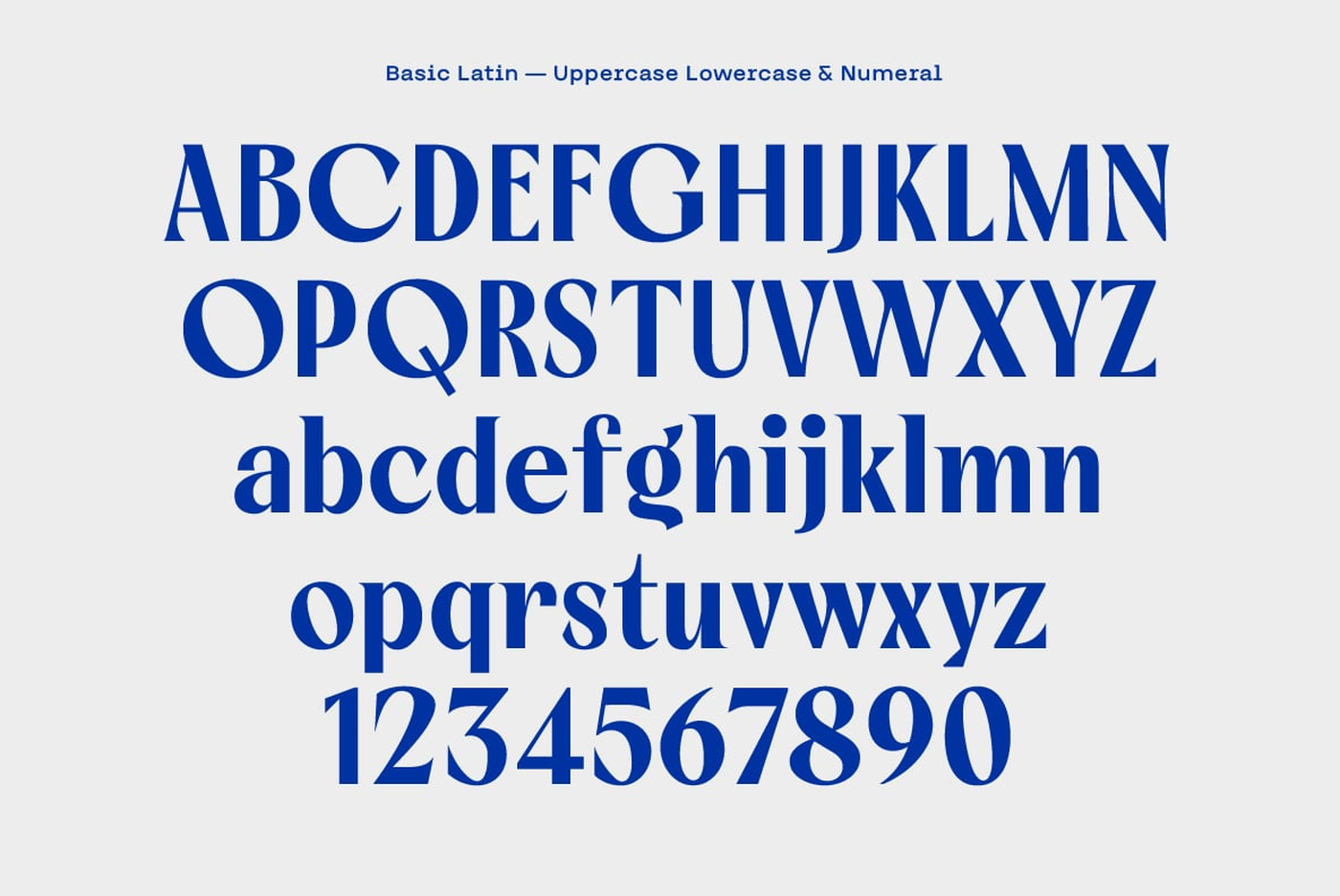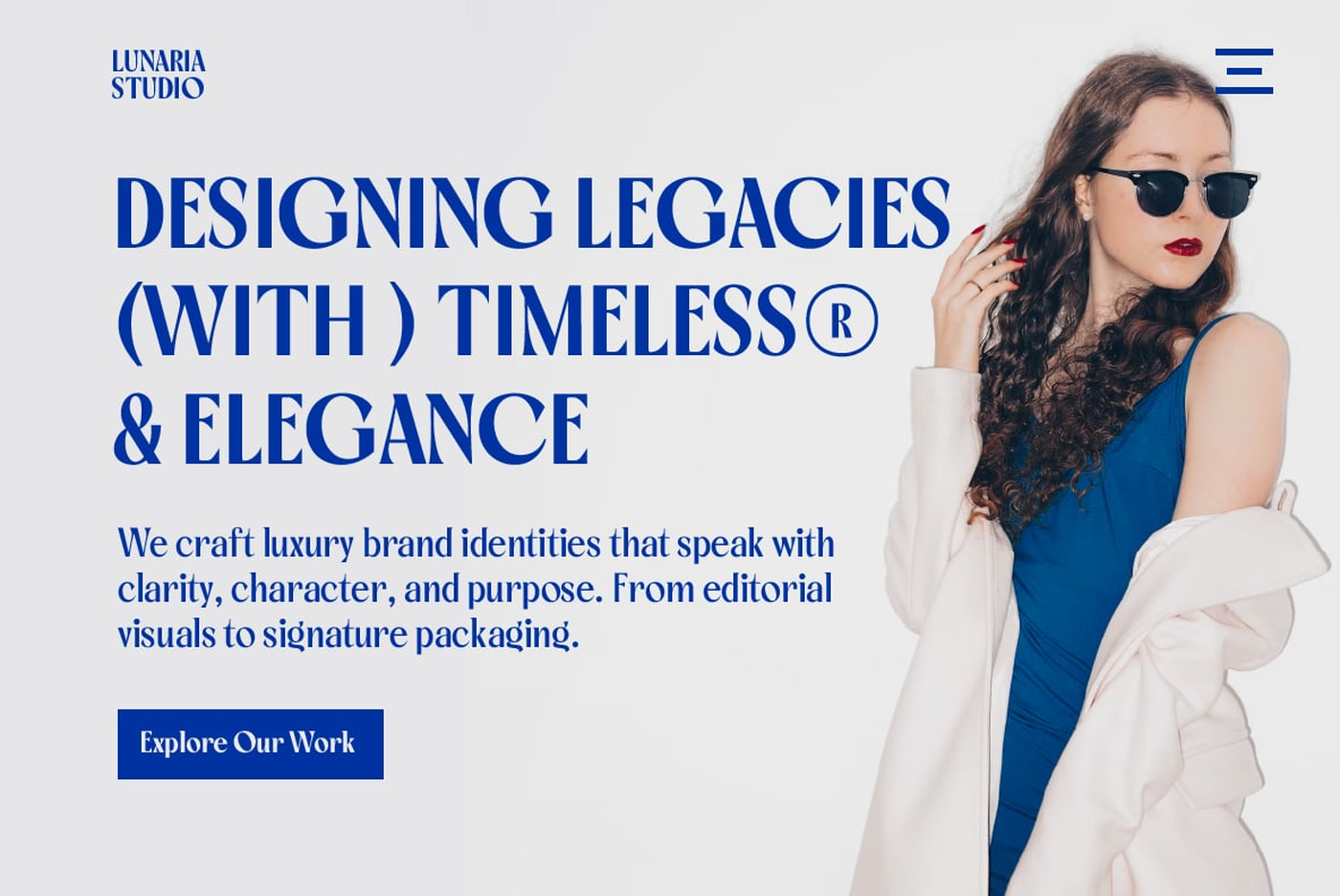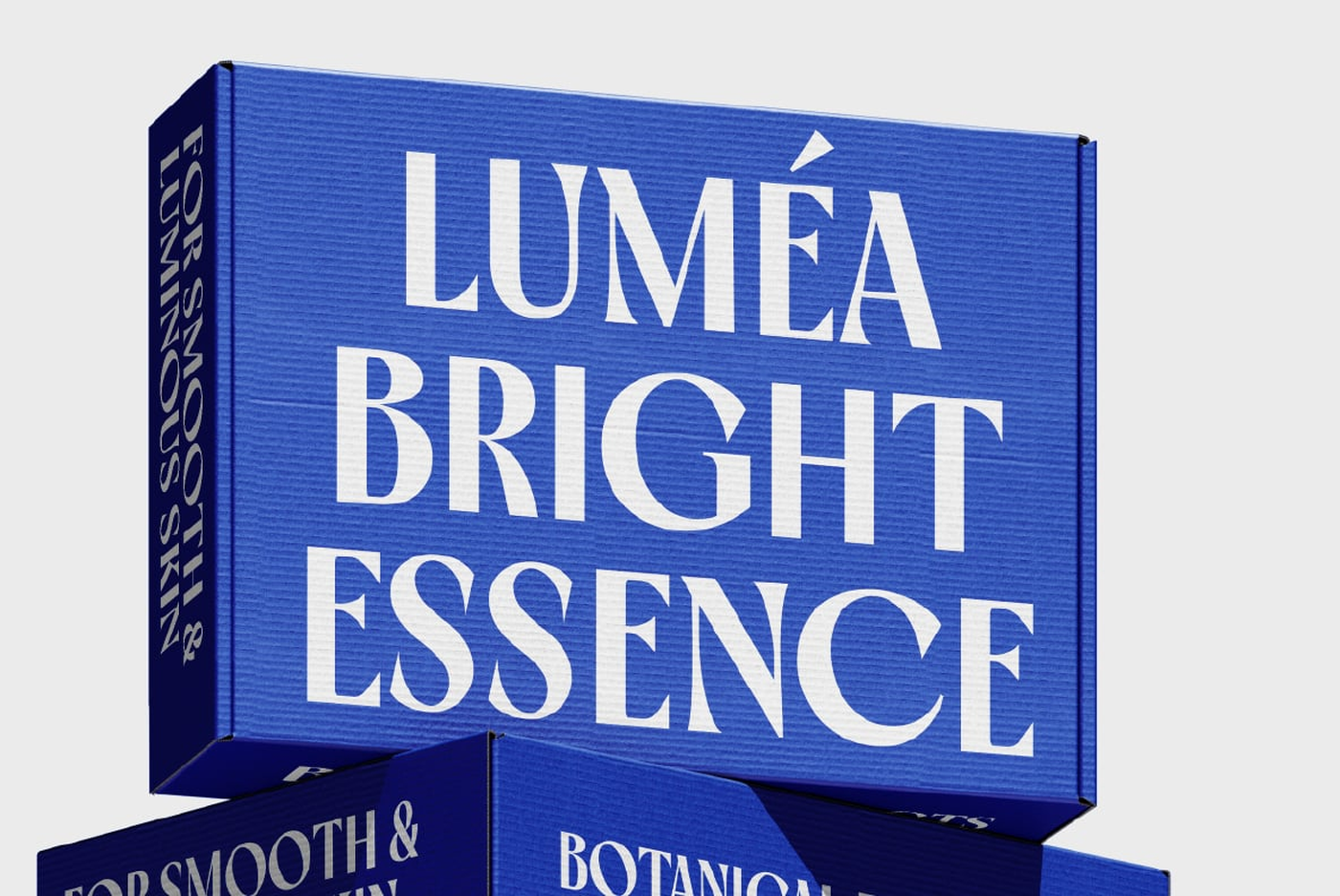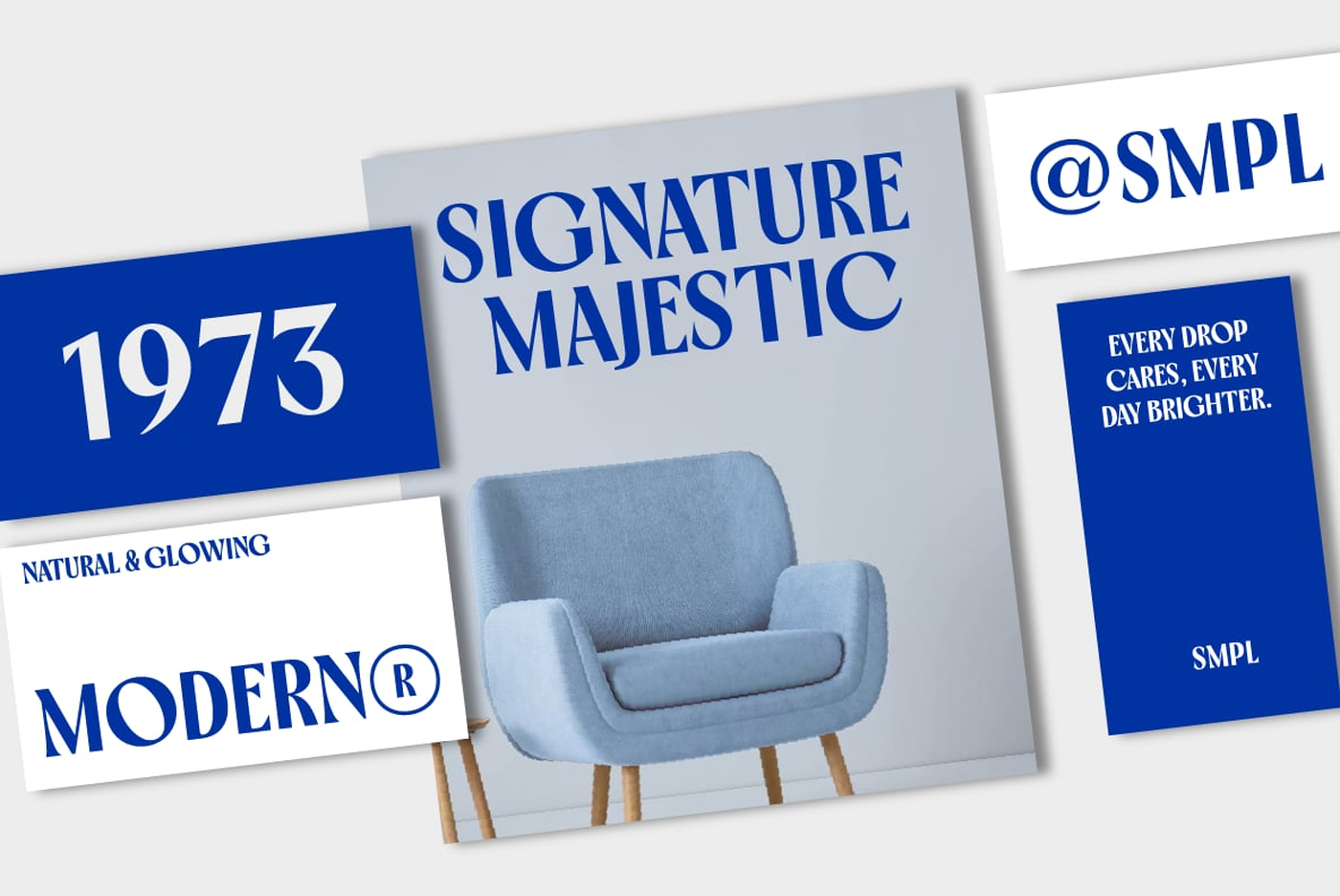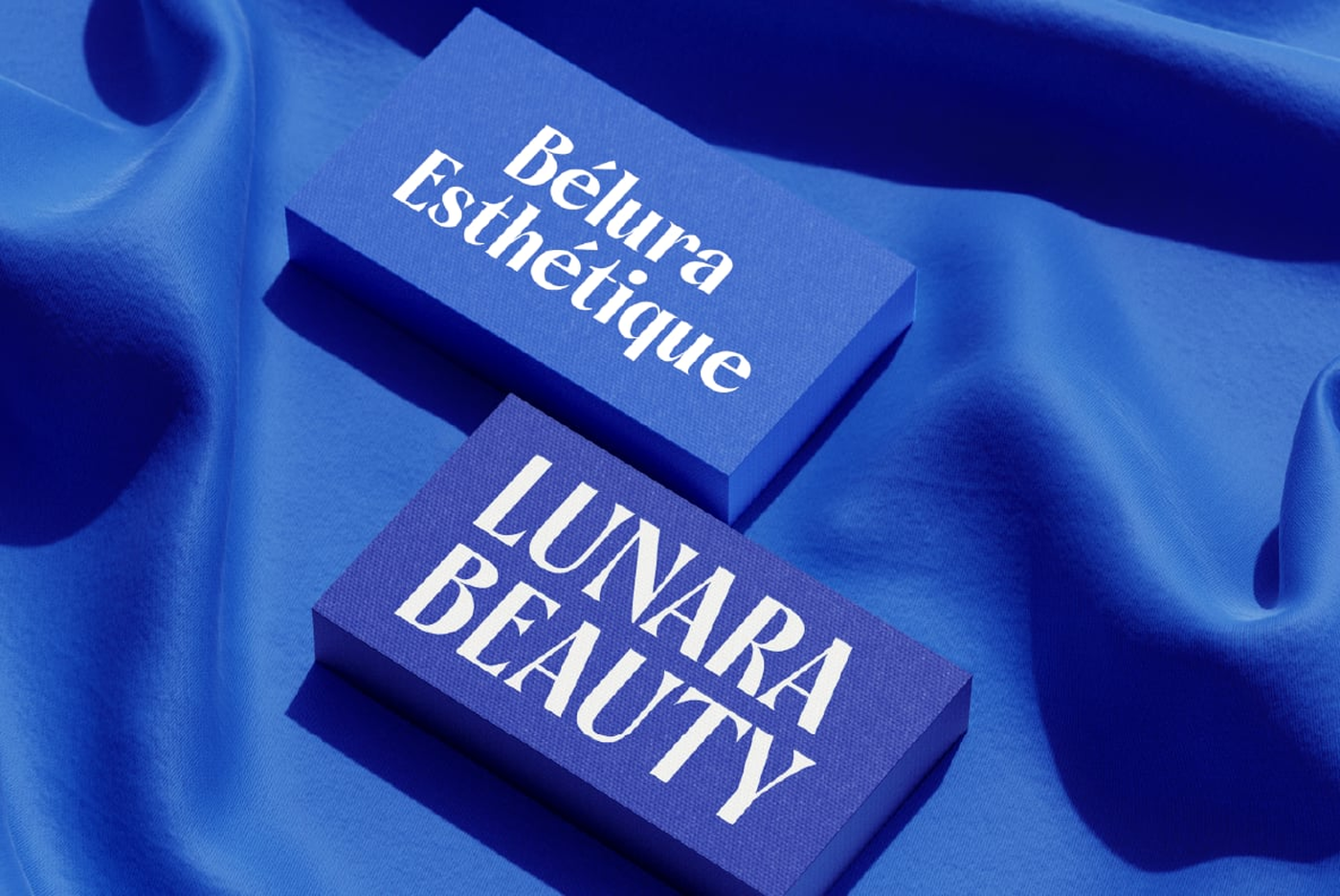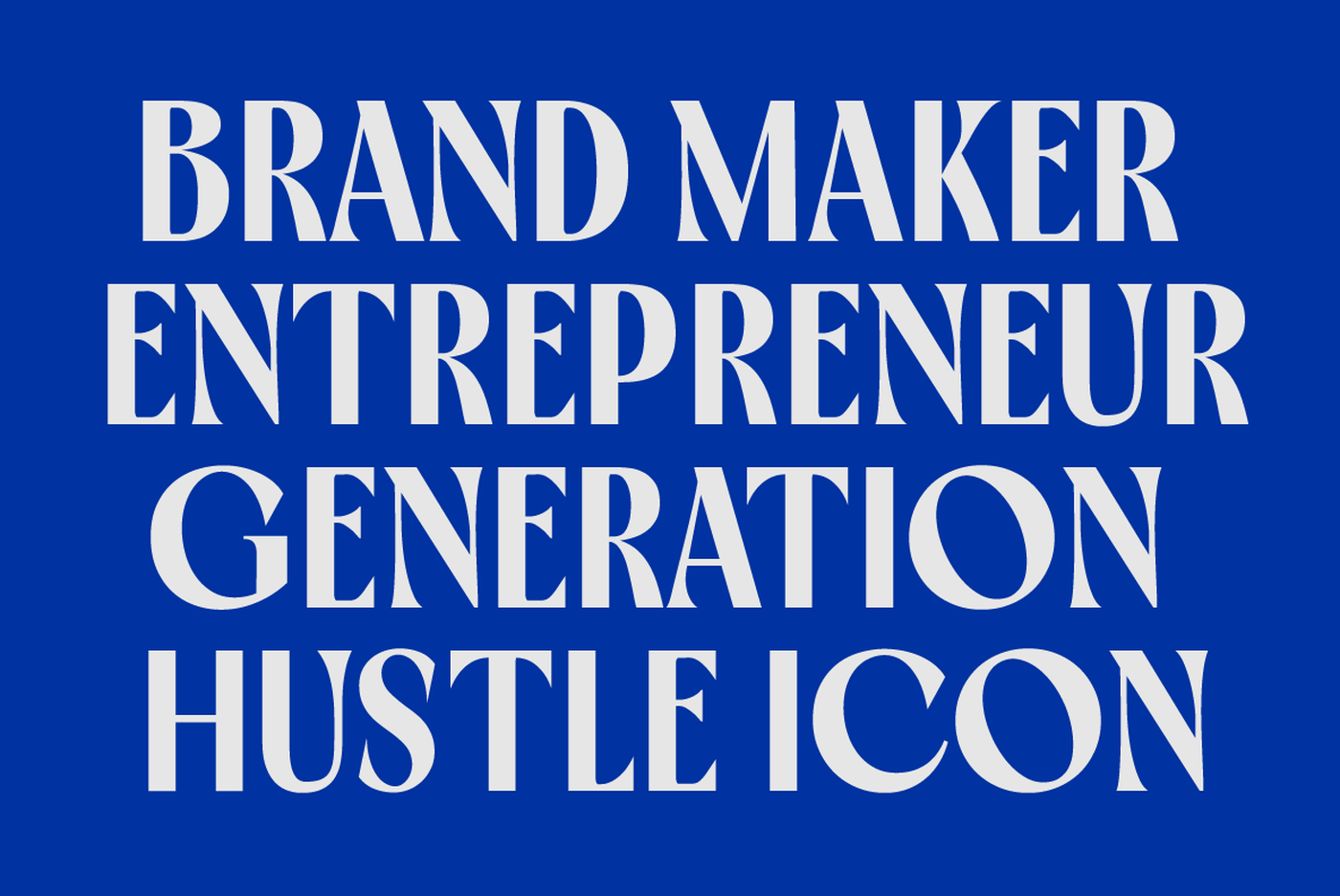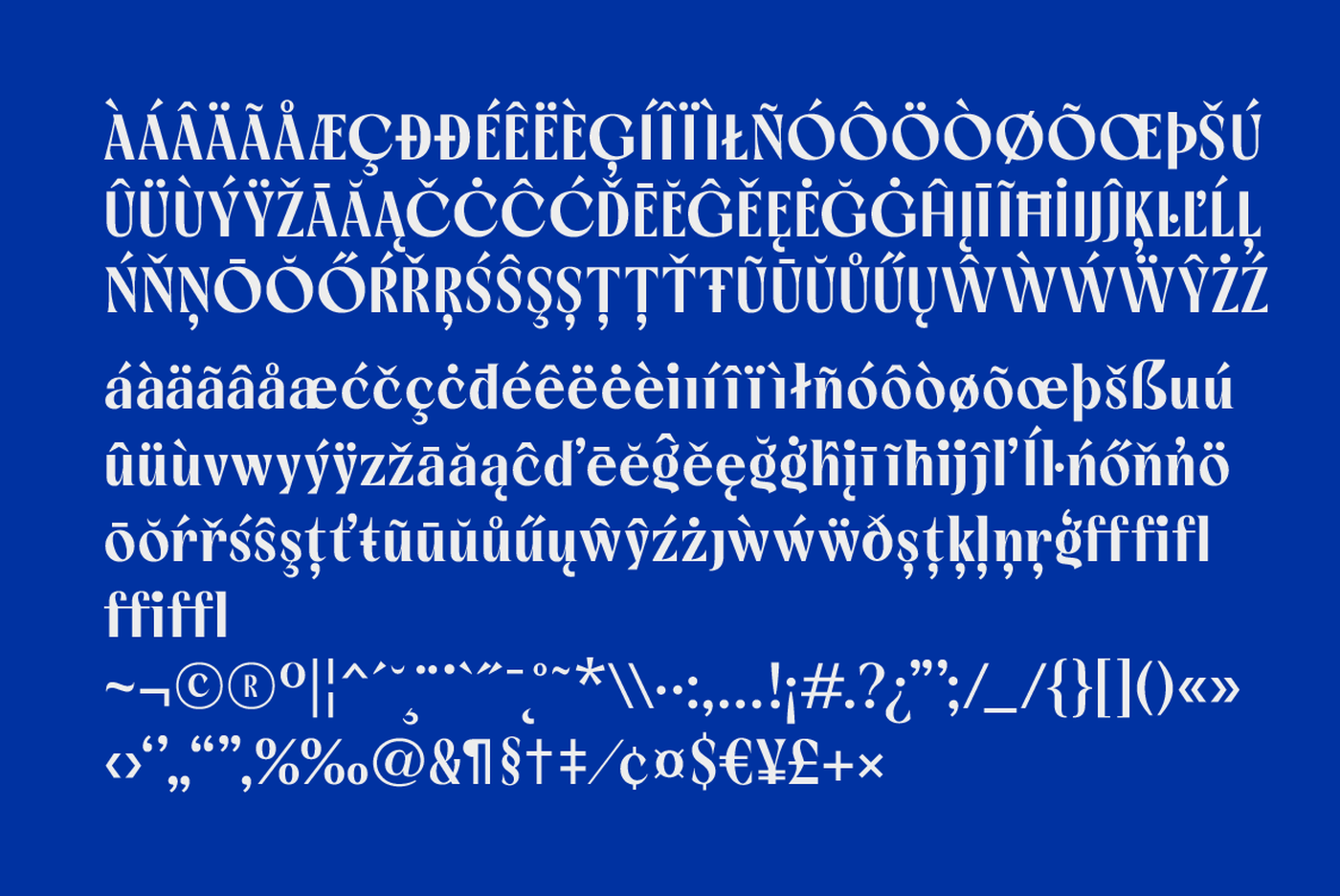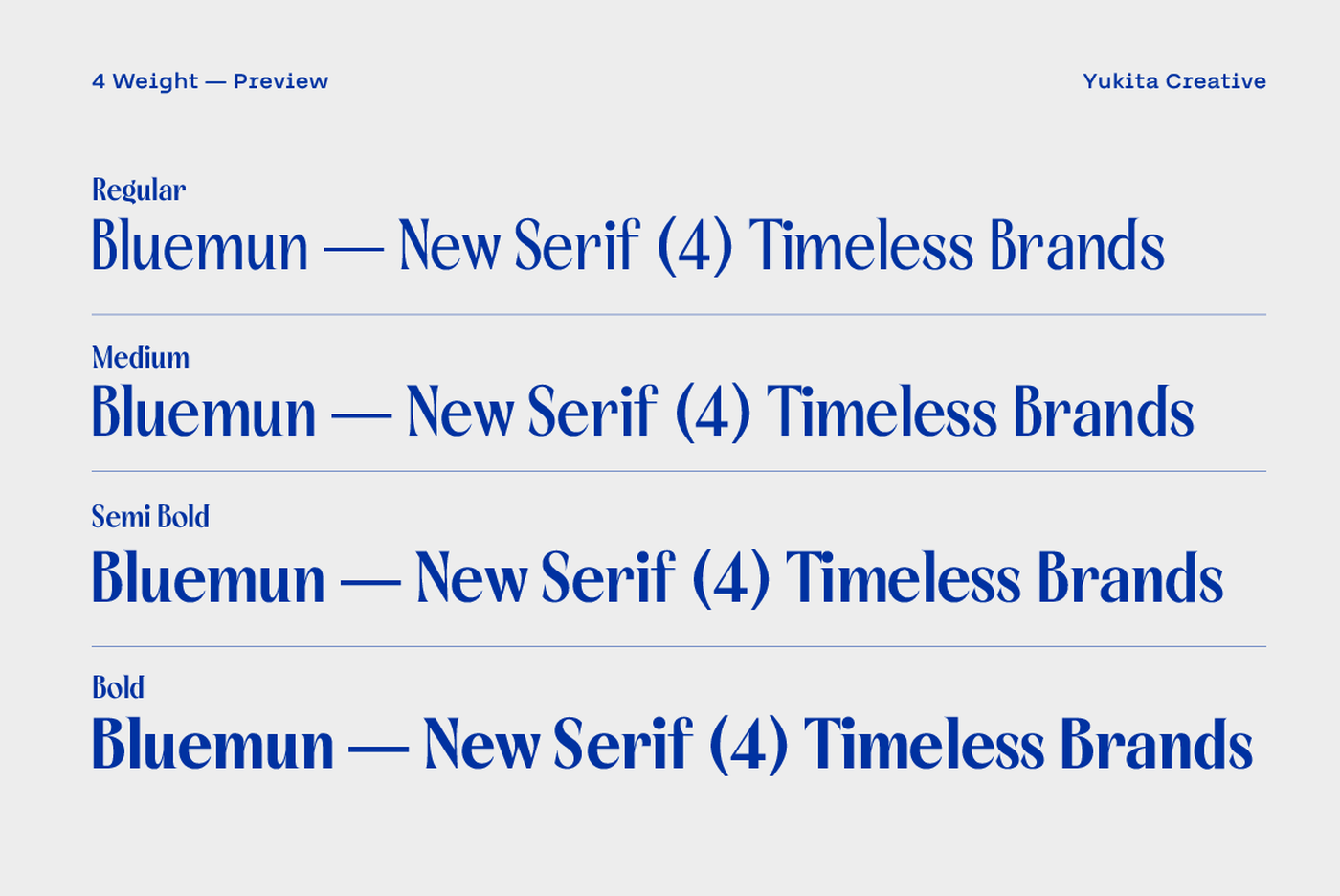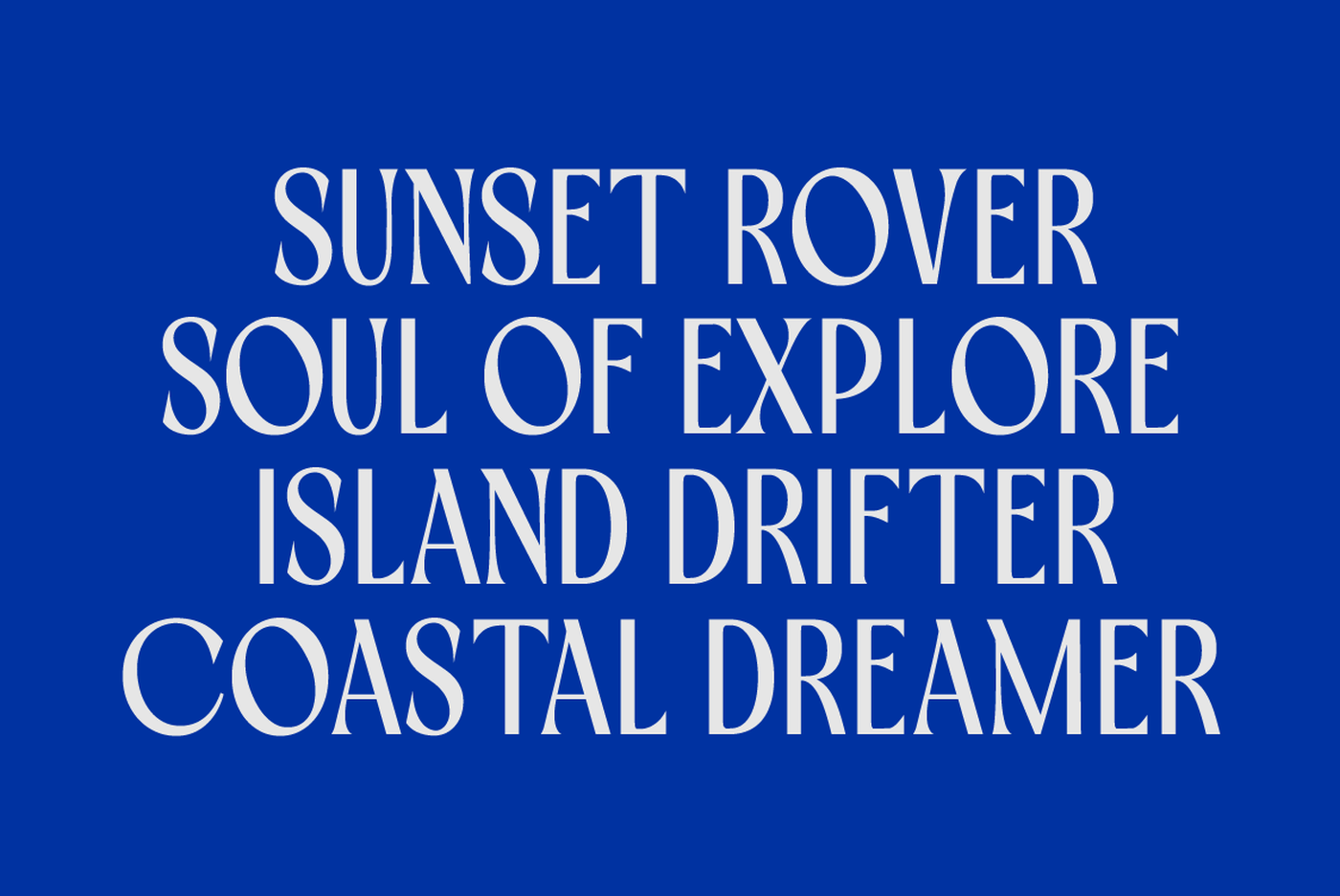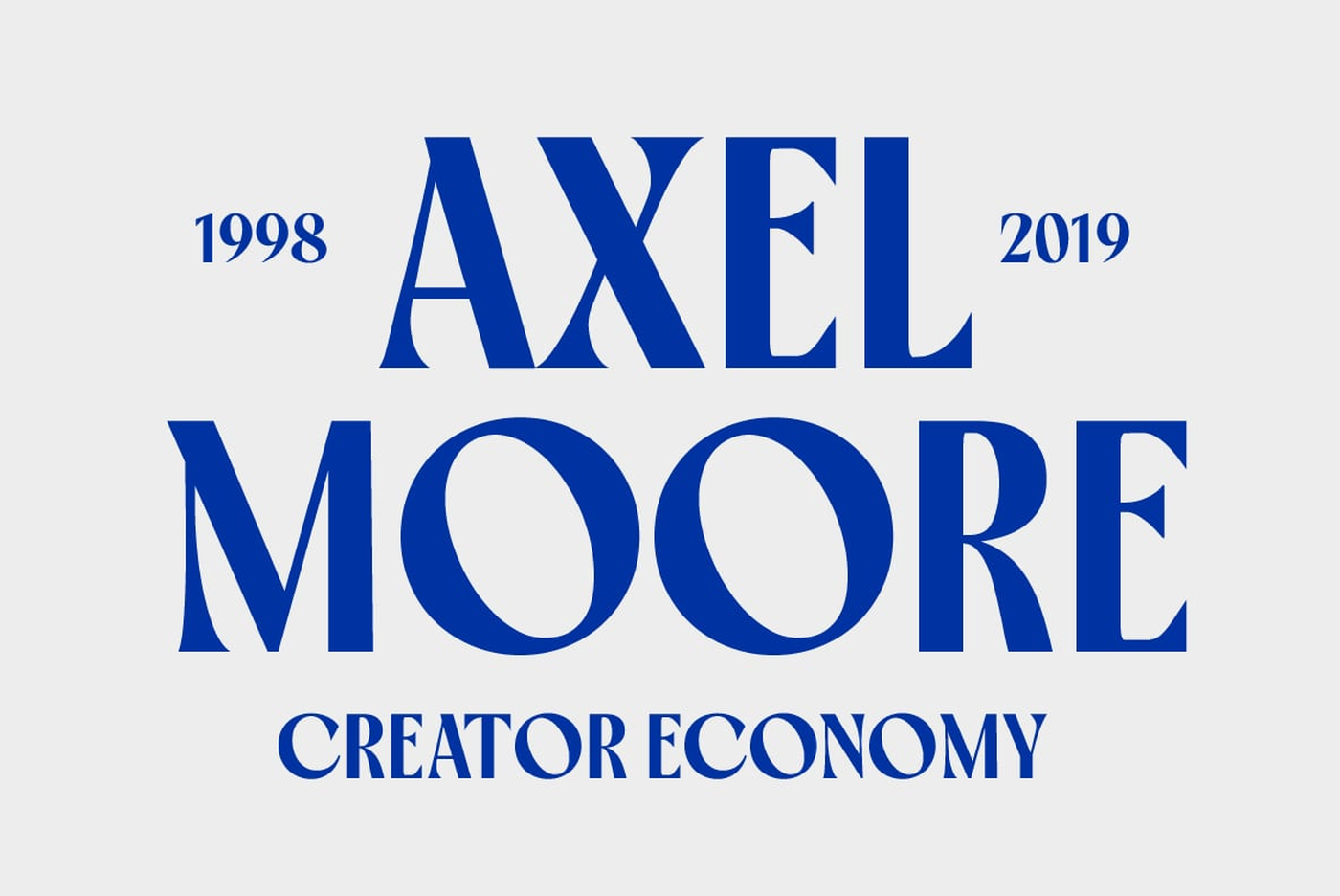
Bluemun - Serif Font Family
Bluemun Serif is a simple and elegant serif font with a classy touch, perfect for modern and timeless design projects. It comes with 4 weights — Regular, Medium, SemiBold, and Bold — making it versatile for headlines, branding, invitations, and editorial use. With clean lines and graceful curves, Bluemun Serif offers a refined look that enhances both digital and print layouts.
Designer: Yukita Creative
Font: Bluemun